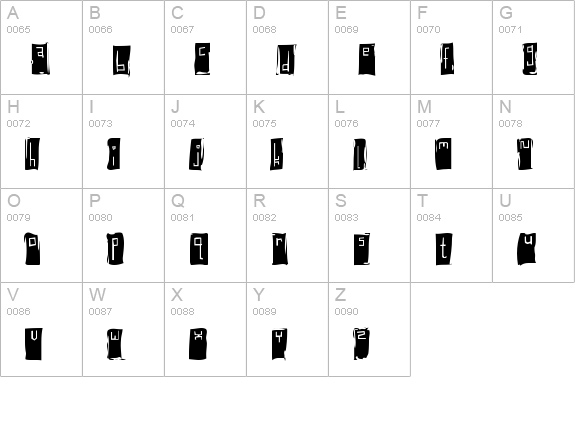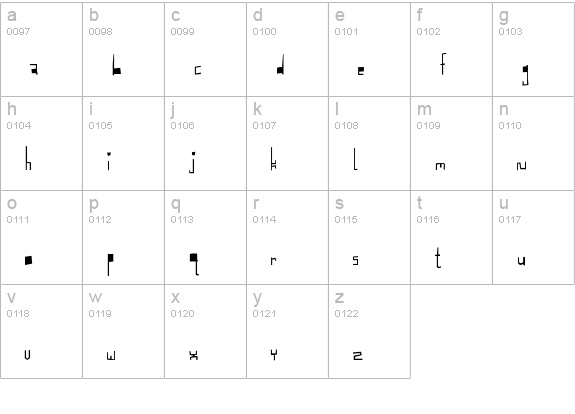
Baglady font is a charming and whimsical typeface that exudes a playful and creative vibe. With its unique hand-drawn style, Baglady is perfect for adding a touch of personality to your designs. The irregular lines and quirky shapes give this font a fun and informal feel, making it ideal for projects that require a touch of whimsy. What's even better is that Baglady font is available for free download at FontsMarket.com. Whether you're working on a greeting card, poster, or logo, Baglady font will bring a sense of joy and creativity to your work. So go ahead and give your designs a fun and unique twist with Baglady font!